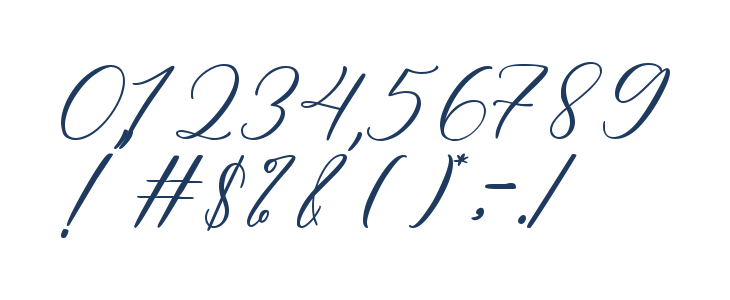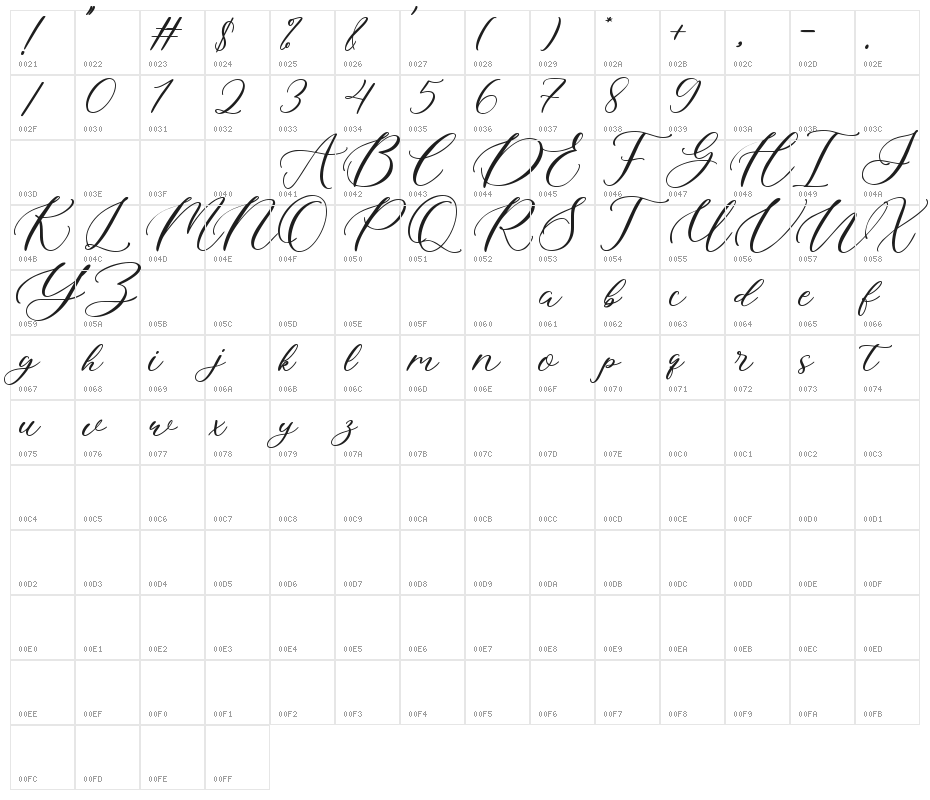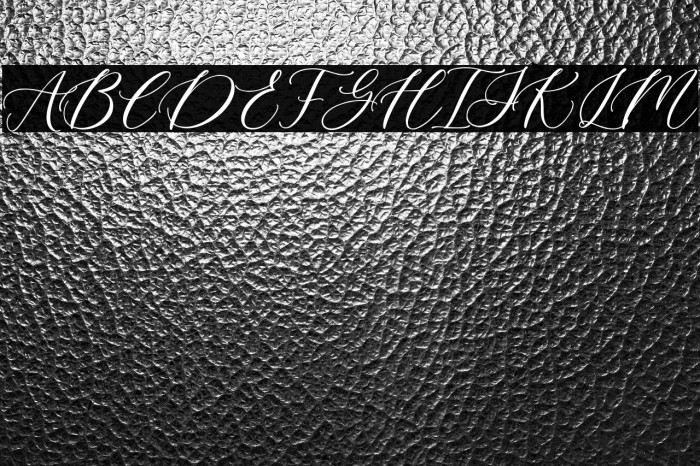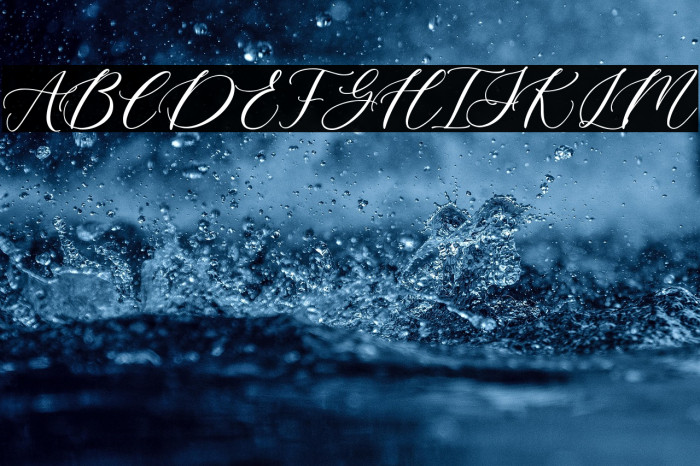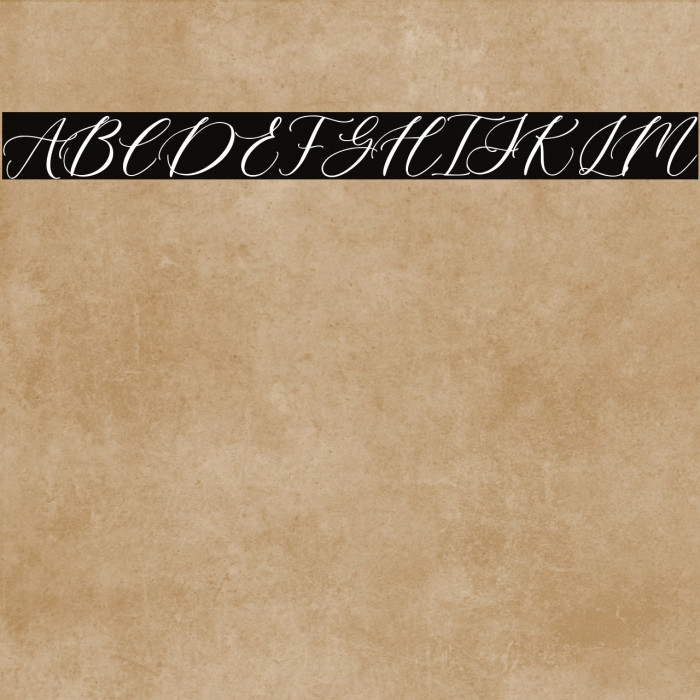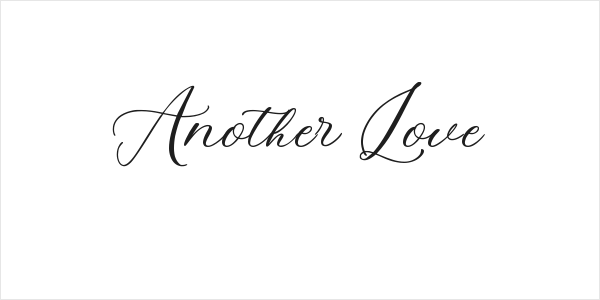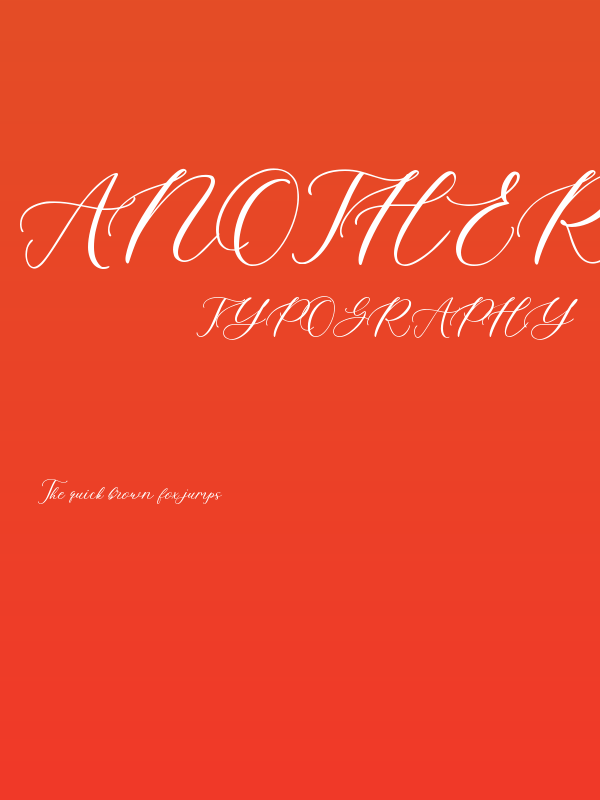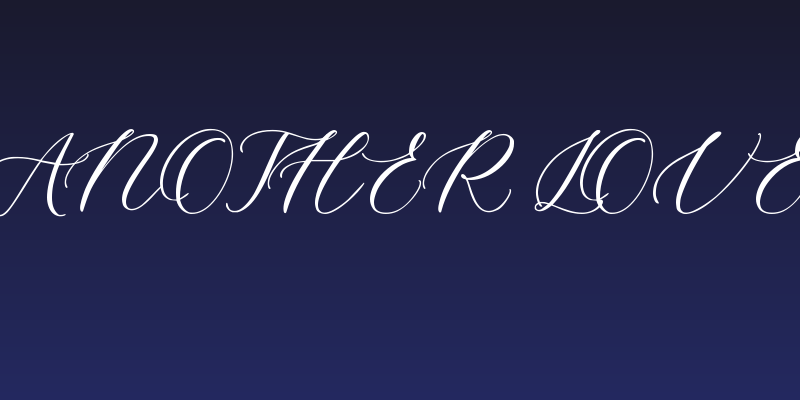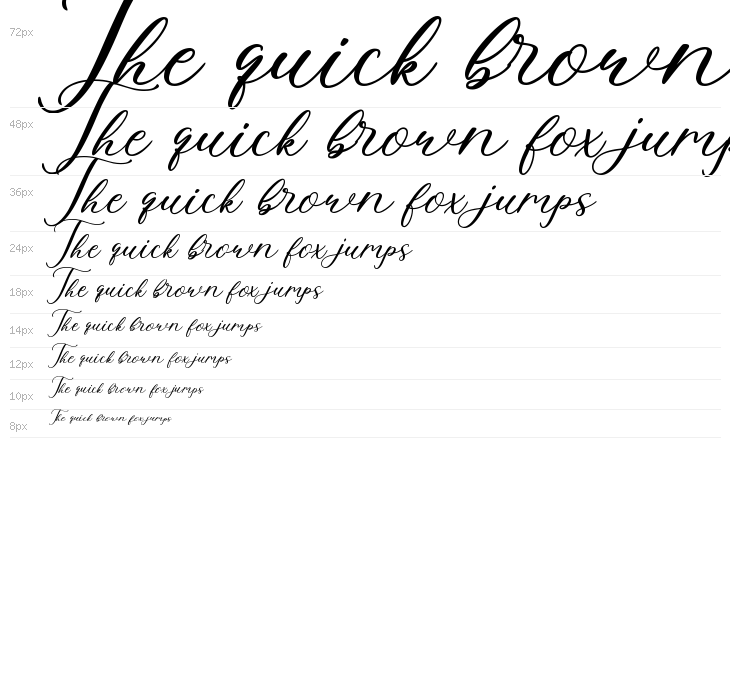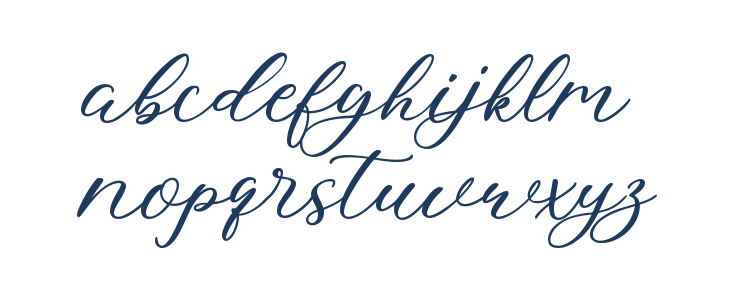
Another Love Font
Another Love Description
This elegant script font features fluid, interconnected strokes that mimic the natural flow of handwriting. The uppercase letters are gracefully elongated, adding a touch of sophistication, while the lowercase letters maintain a consistent rhythm and balance. The numerals and special characters are crafted with the same attention to detail, ensuring a cohesive look across all text. The font's delicate curves and loops give it a romantic and artistic flair, making it suitable for projects that require a personal and refined touch.
| Overall Style | Romantic, Artistic |
| Proposed Projects | Ideal for wedding invitations, greeting cards, personal branding, and elegant packaging designs. |